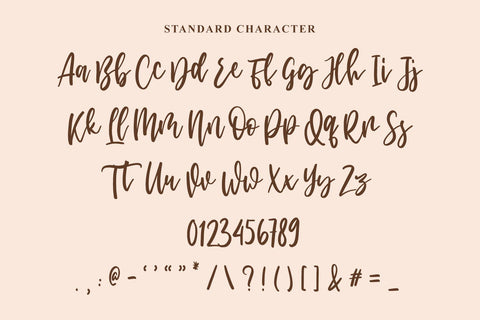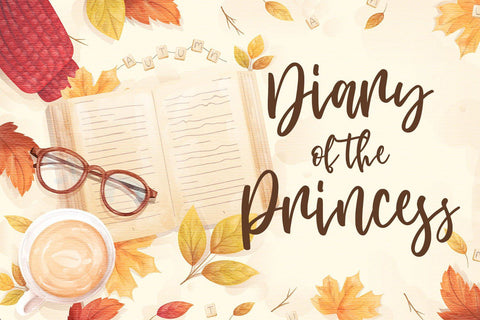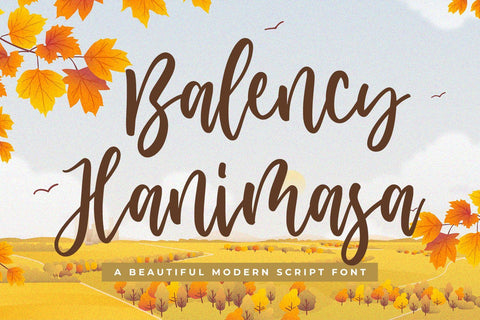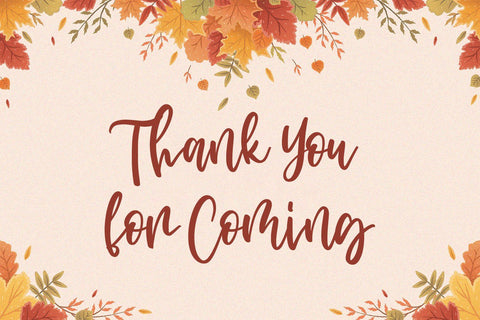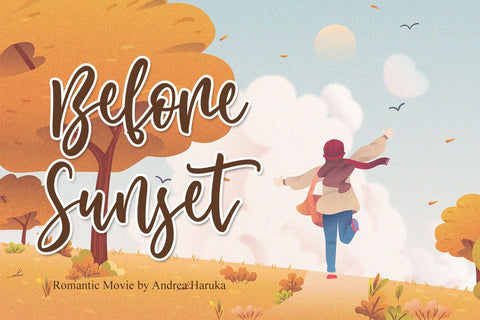
Balency Hanimasa Script Font
Balency Hanimasa is a flowing script font, described by an elegant touch, perfect for your favorite projects. Fall in love with its incredibly distinct and timeless style and use it to create spectacular designs!